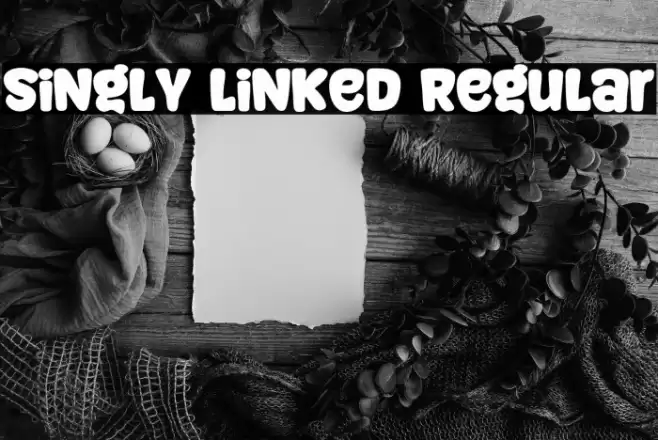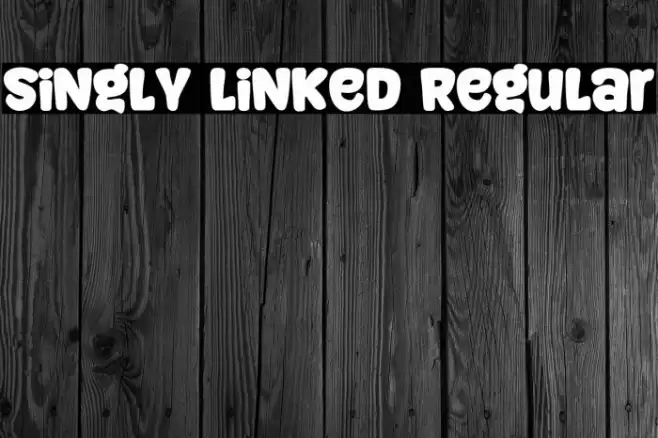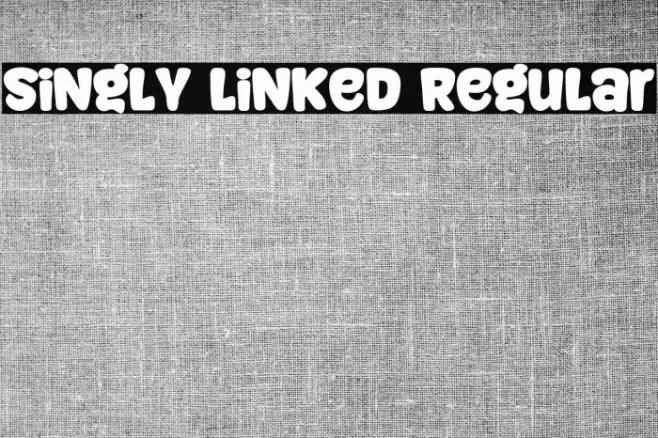
Singly Linked Regular Font
Singly Linked Regular Description
This font features a bold and playful style with rounded edges and a bubbly appearance. The characters are thick and have a consistent weight throughout, giving them a strong presence. The uppercase and lowercase letters maintain a uniform height, contributing to a cohesive look. The numbers and special characters follow the same design principles, ensuring a harmonious overall appearance. The font's rounded and friendly design makes it suitable for projects that aim to convey a sense of fun and approachability. Its boldness ensures readability, even at smaller sizes, while the rounded forms add a touch of whimsy.
A bold, playful font with rounded edges and a bubbly appearance from Uncategorized fonts.
- Proposed Projects: Ideal for children's books, playful branding, posters, and social media graphics.
- Overall Style: Playful, Fun